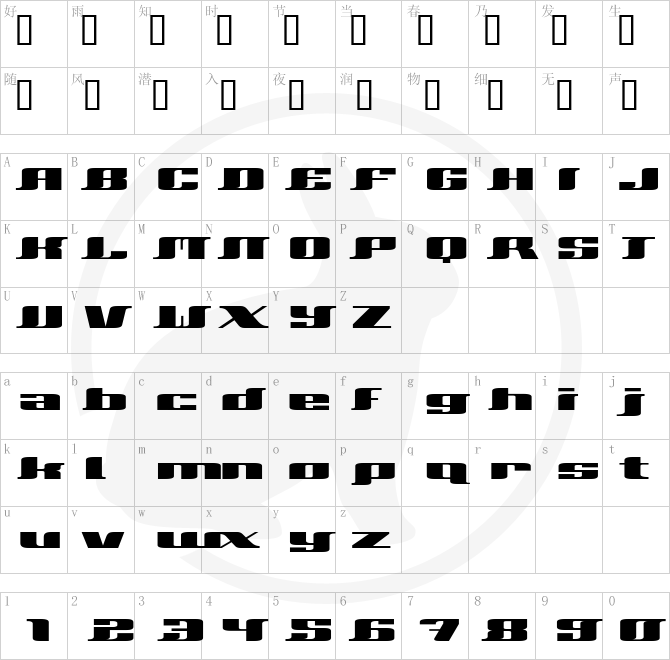
- Font Name:Xeranthemum
Xeranthemum.ttf is a very beautiful artistic font, Xeranthemum.ttf is widely used in the design and printing of various books and pictures,Xeranthemum.ttf has a strong visual impact,Xeranthemum.ttf is a commonly used font in newspapers, magazines and books, and is used in posters, e-commerce Poster design, store design, logo design, font design and other fields.Xeranthemum.